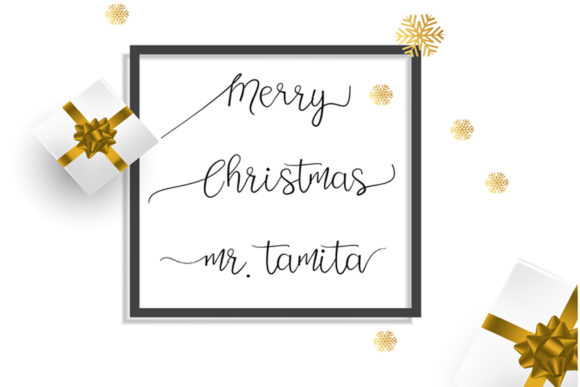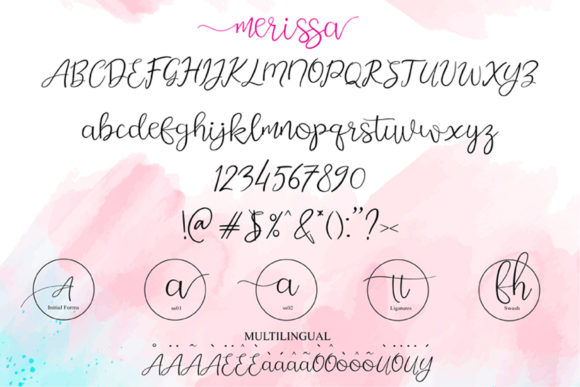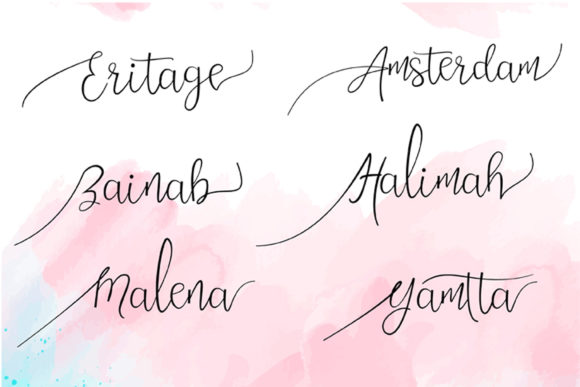
Merissa Font
Merissa is a beautiful and distinctly authentic script. It has been enriched with additional alternative characters of up to 100 more glyphs and more than 20 handmade illustrations that perfectly capture the soul of this stunning font!